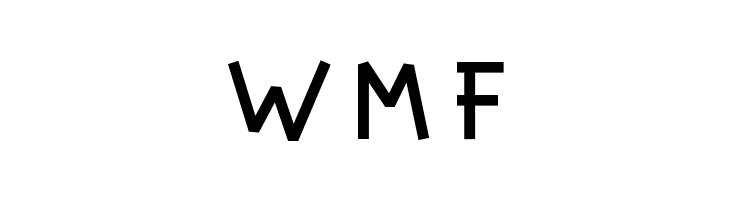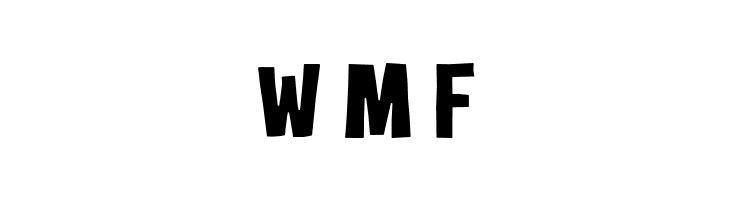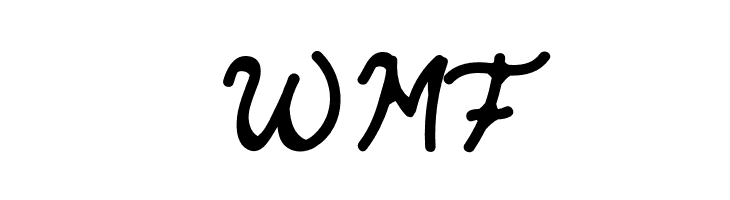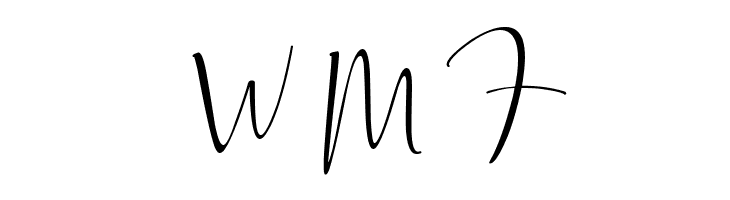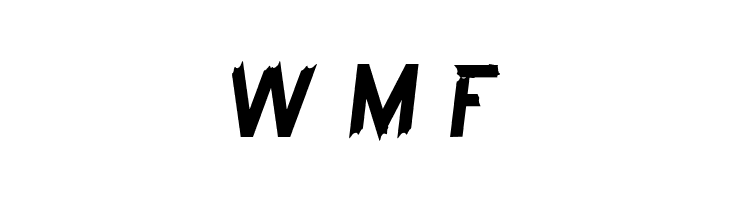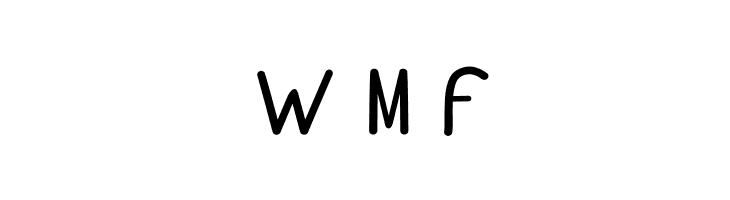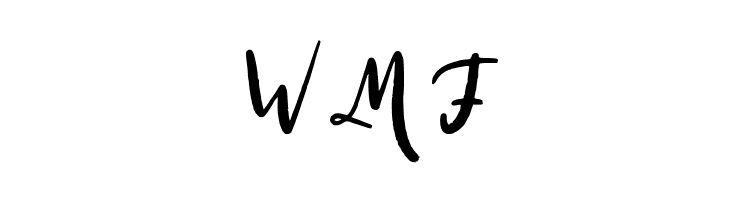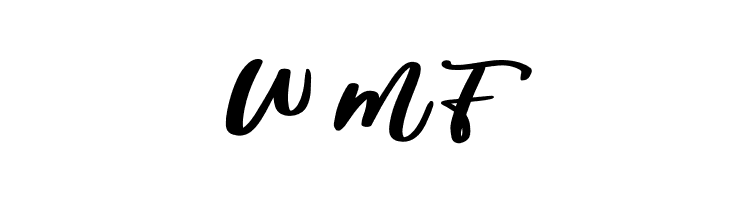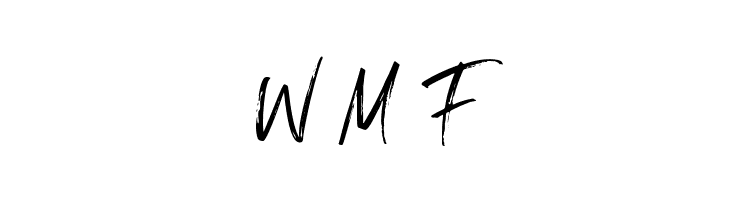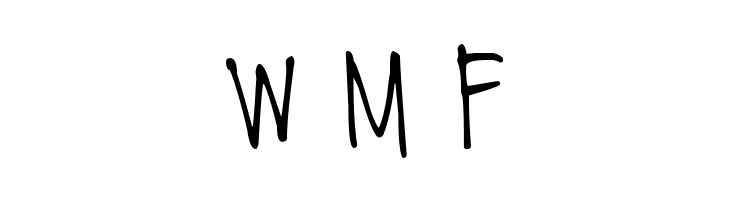
A bold, cartoonish font with playful, exaggerated curves.
A flowing, cursive font with elegant, interconnected characters.
A bold, dynamic brush script font with an expressive, hand-painted style.
A bold, brush-style font with dynamic, energetic strokes.
A playful, handwritten cursive font with medium contrast and dynamic flow.
A cursive, handwritten-style font with elegant, flowing characters.
An elegant, flowing script font with smooth, connected strokes.
A bold, angular font with a rugged, distressed texture.
A bold, distressed font with a gritty, urban aesthetic.
A bold, distressed font with a gritty, rock-inspired aesthetic.
A dynamic brush script font with expressive, fluid strokes and a hand-painted aesthetic.
A playful, handwritten font with smooth, rounded edges and a casual style.
A playful, handwritten font with smooth, flowing lines and a casual style.
A bold, cursive font with a distressed, vintage style.
A lively, handwritten script font with medium contrast and fluid strokes.
A playful, handwritten font with fluid, expressive letterforms and a whimsical style.
A lively, handwritten script font with fluid, connected strokes and dynamic character.
A bold, decorative font with a dotted pattern and thick outlines.
A bold, hollow font with a 3D effect and patterned interiors.
A bold, decorative font with a geometric circle pattern and strong outlines.
A decorative, hand-drawn font with double-line outlines and a playful style.
A bold, dynamic font with a hand-crafted, playful style.
A bold, geometric font with playful angular lines and a dynamic style.
A playful handwritten font with a casual and dynamic style.
A lively, handwritten cursive font with a playful and dynamic style.
A playful handwritten font with heart-themed decorations on each character.
A playful handwritten font with heart motifs and a whimsical, friendly style.
A playful, hand-drawn font with a whimsical and casual style.
A playful, handwritten font with a casual and dynamic style.
A bold, modern sans-serif font with clean lines and high legibility.
A bold, impactful font with thick strokes and a strong presence.
A playful, bold font with thick, rounded strokes and a whimsical style.